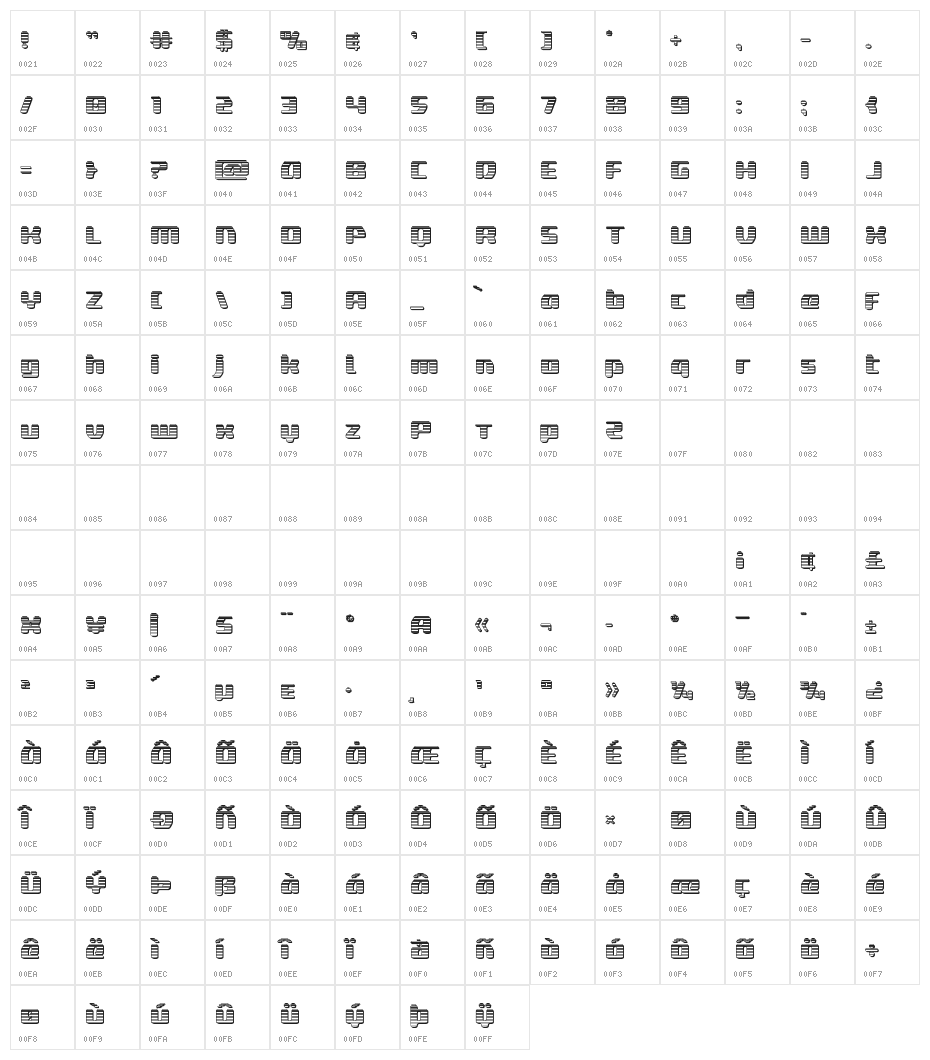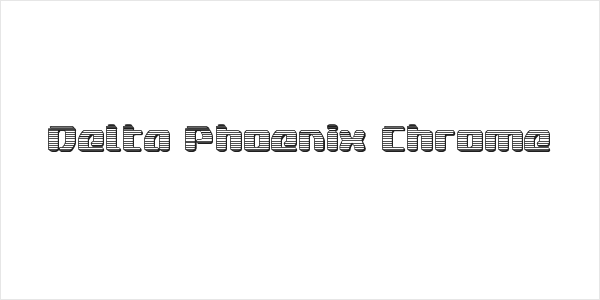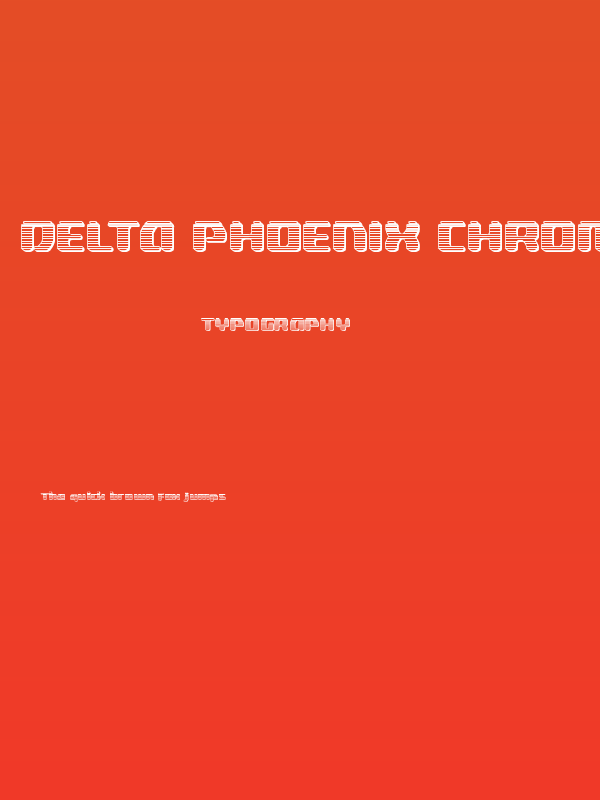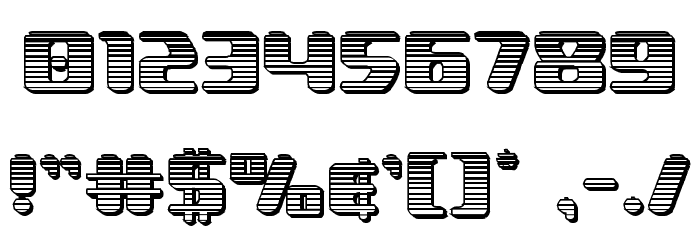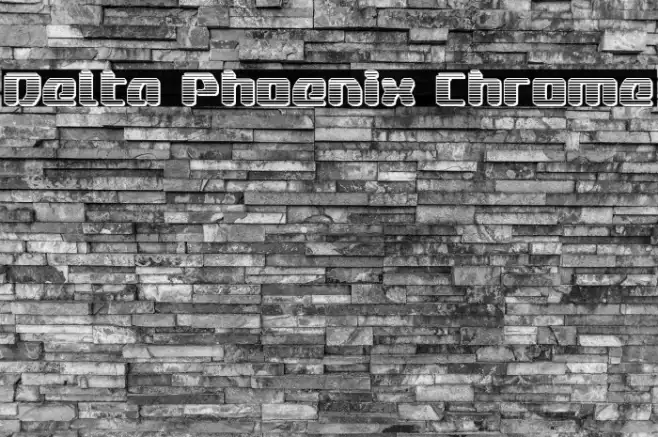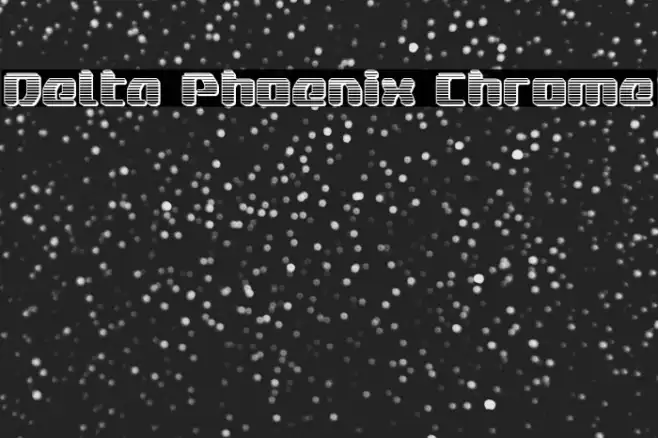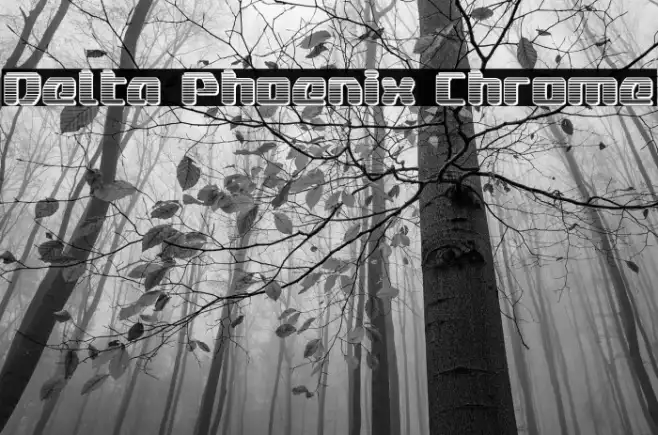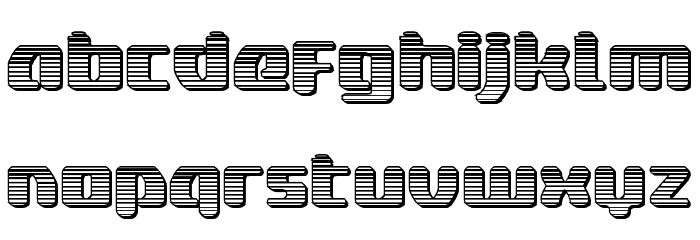
Delta Phoenix Chrome Font
Delta Phoenix Chrome Description
This font features a futuristic and geometric design with a distinct chrome-like appearance. Each character is constructed with multiple parallel lines that create a three-dimensional effect, giving it a metallic and industrial feel. The uppercase and lowercase letters maintain a consistent style, with rounded edges and a bold presence. Numbers and special characters are designed to match the overall aesthetic, making them suitable for a cohesive look across various applications. The font's unique style is eye-catching and ideal for projects that require a modern and tech-inspired look.
| Proposed Projects | Ideal for technology branding, sci-fi themed projects, video game titles, and futuristic posters. |